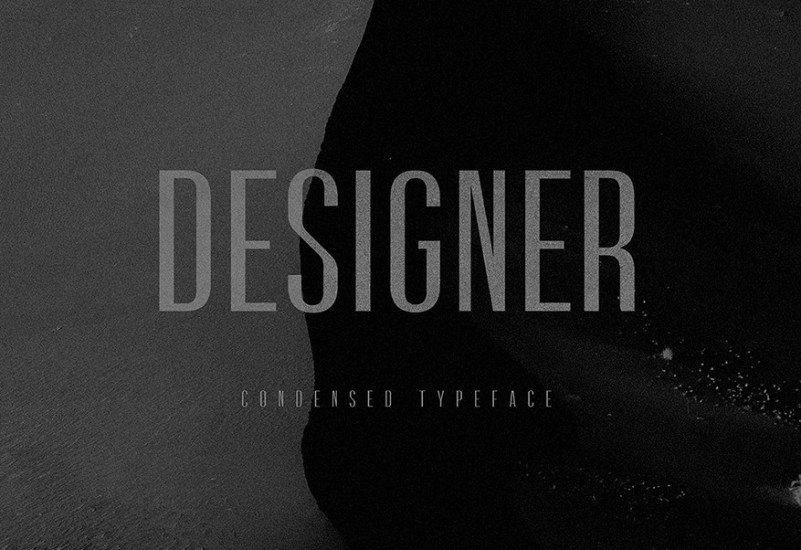
Designer Font Family
Designer Font Family – Free Demo
This is a simple, geometric sans-serif display font with versatility and personality. It’s a uniquely playful and inviting typeface of contradictions – futuristic yet retro, neutral yet distinctive! Introducing, Designer Font! Droping Sans Serif Font! A Sport Font . It’s also perfect for that and delicate look that you want in your invitations, poster. Strong and clean. This tyepeface is Modern and very suitable for logos, Tshirt, apparel, quote, handwritten quotes, product packaging, tittle header, poster, merchandise, social media, labels, branding & greeting cards.